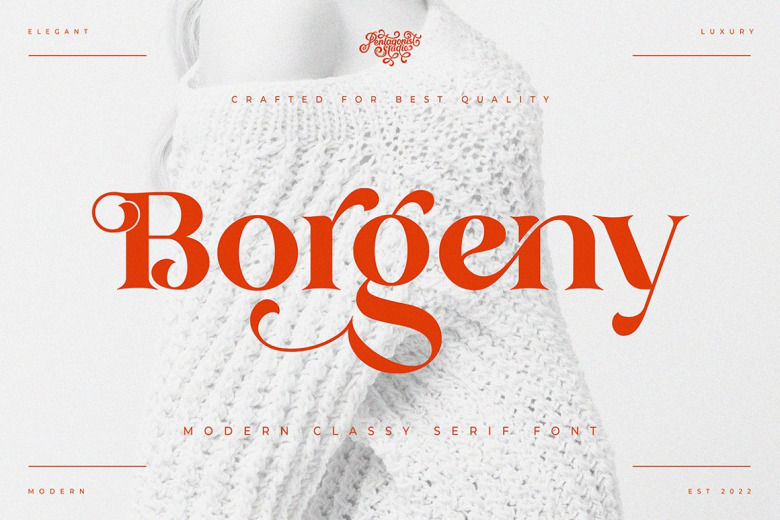
Borgeny Font
Borgeny is a sophisticated typeface contemporary but also elegant in todays world of automated script logos, Borgeny is a perfect modern classy serif font. It can be compared with a vast array of other projects, which means that you should not hesitate to incorporate it into your creativity concepts and observe how it enhances them!
Ideal for creating logos, clothing brand, product branding, magazine covers or merging attractive words to any background image.
Borgeny Serif Font